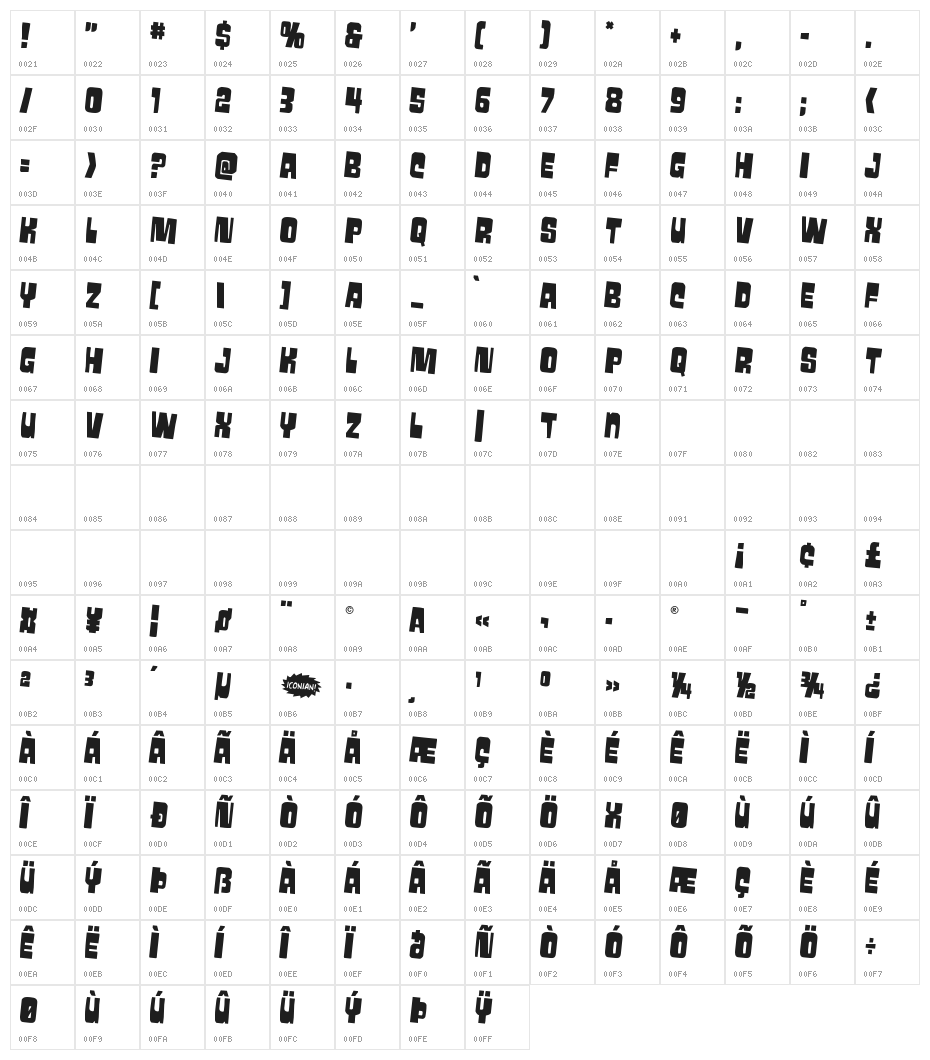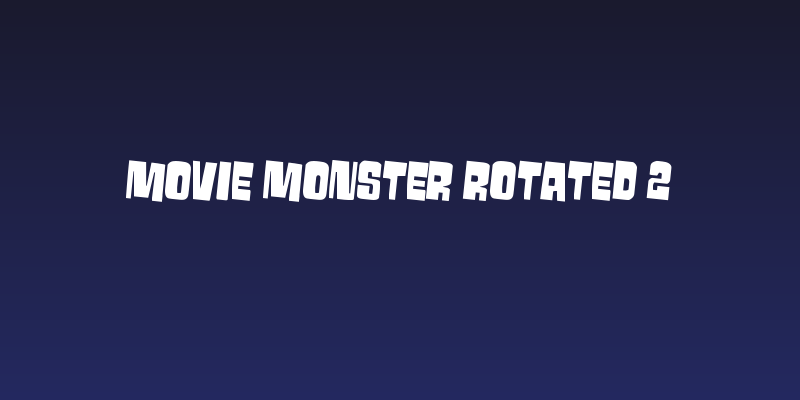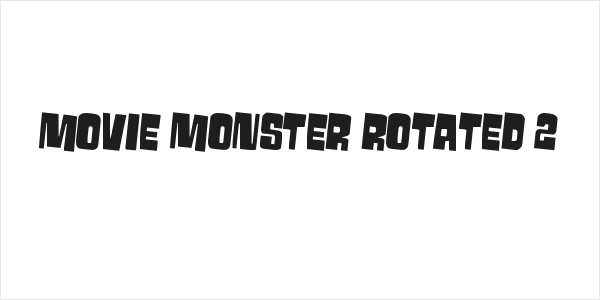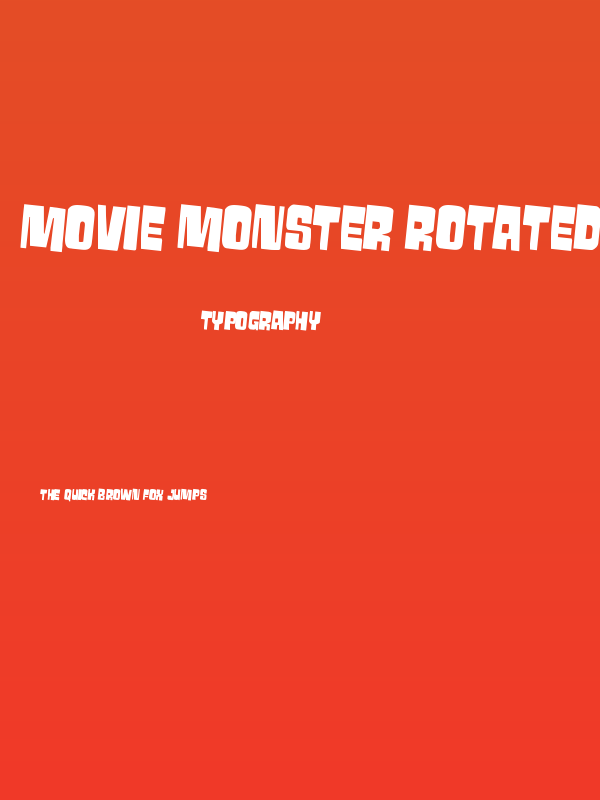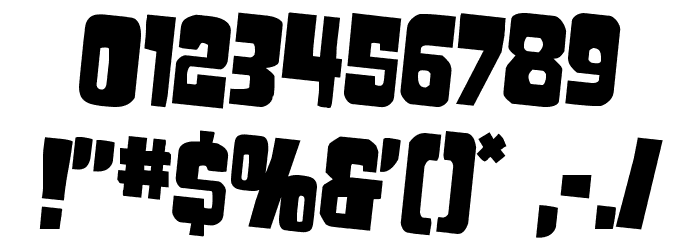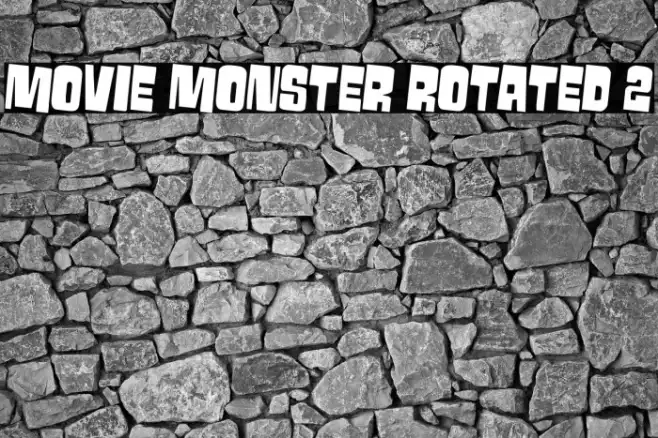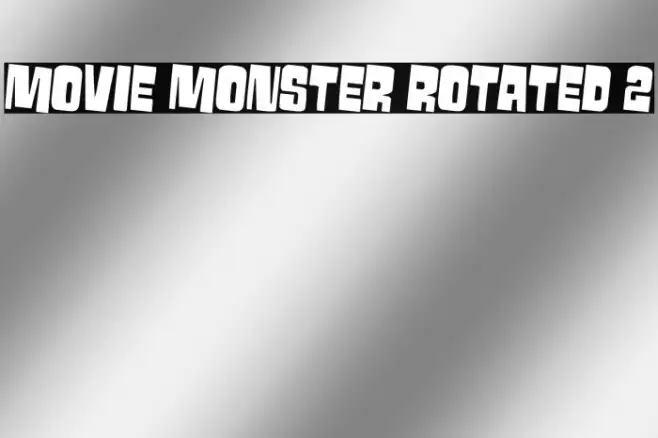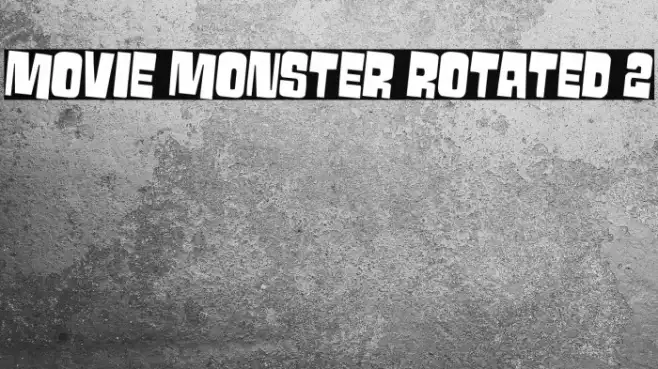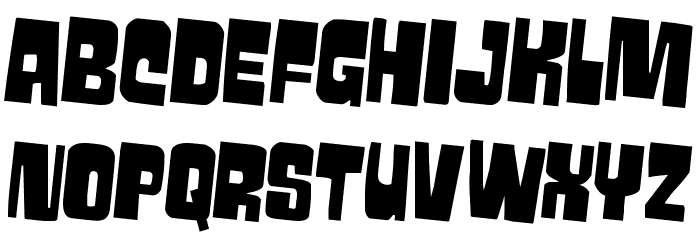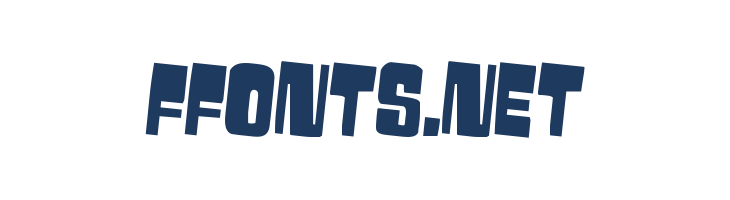
Movie Monster Rotated 2 Font
This font features bold, angular characters with a strong presence, making it ideal for attention-grabbing designs. The letters are uniformly thick, with a slight slant that adds a dynamic feel. The uppercase letters are particularly striking, with sharp edges and a blocky appearance. The numerals and special characters maintain the same bold style, ensuring consistency across all text elements. This font's unique style is reminiscent of vintage horror movie posters, giving it a nostalgic yet impactful look.
| Proposed Projects | Ideal for movie posters, Halloween-themed designs, video game titles, and any project requiring a bold, dramatic typeface. |